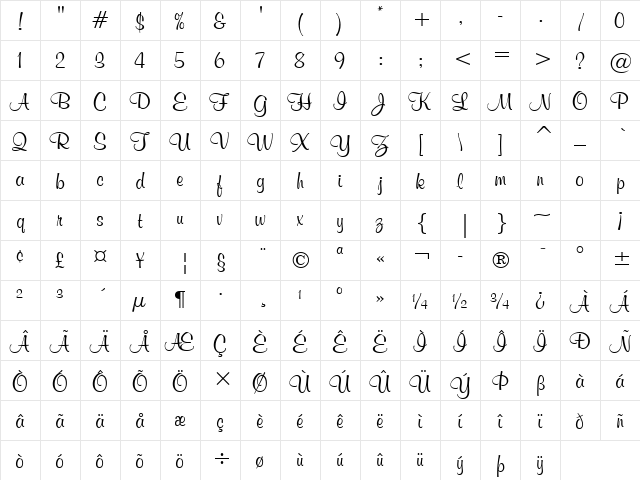
MurrayHill Bd BT Bold
Design Context for MurrayHill Bd BT Typeface
MurrayHill Bd BT is a composed and adaptable typeface that performs quietly and consistently across a wide range of design contexts. Its bold stroke weight gives it real presence on the page.